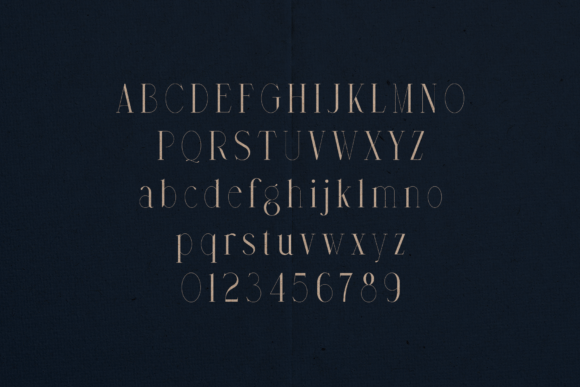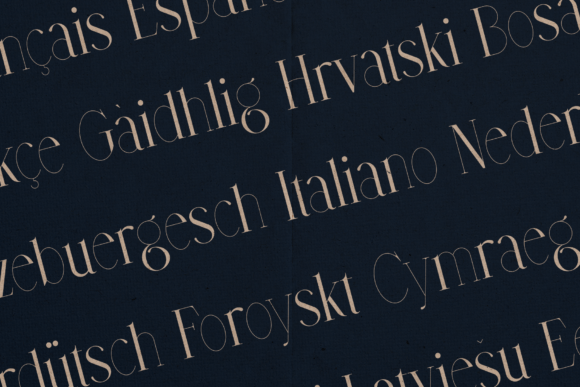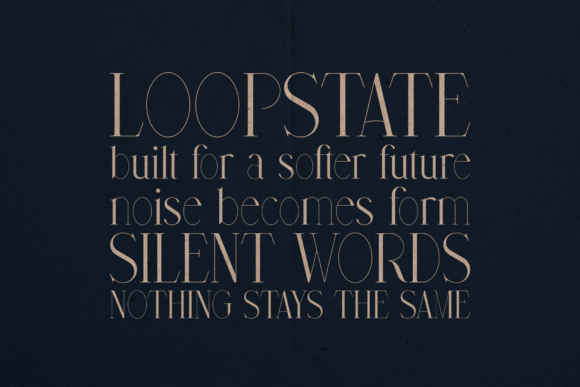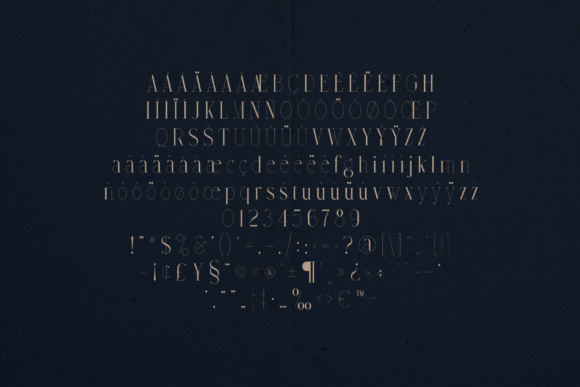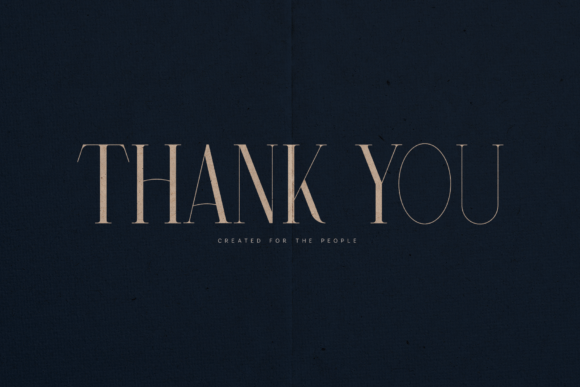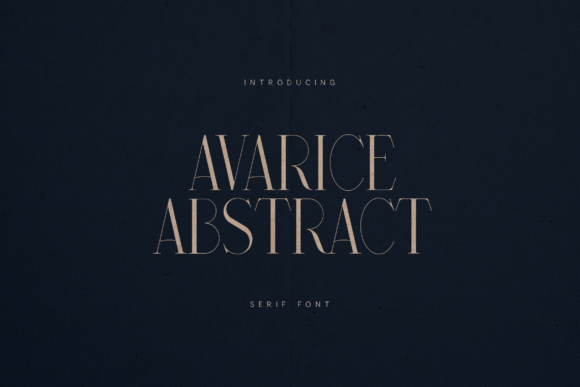
Avarice Abstract Font: Elevate Your Design with Luxury and Sophistication
In the world of typography, few fonts manage to strike a balance between elegance and artistic tension. Avarice Abstract, a refined high-contrast serif font, is one such exceptional typeface that has been designed to make a statement. With its sculpted curves, delicate transitions, and dramatic contrast, Avarice Abstract is perfect for luxury branding, sophisticated editorials, and elevated visual identities.
Avarice Abstract boasts a range of design characteristics that set it apart from other serif fonts. Its uppercase letters exude bold presence, while the lowercase forms add refinement and rhythm. The font’s high contrast and delicate curves create a sense of drama and sophistication, making it ideal for statement typography. The intricate ligatures and subtle transitions between letters add an artistic touch, perfect for designers and crafters looking to elevate their work.
Perfect for Luxury Branding and Design
Avarice Abstract is a versatile font that can be used in a variety of design applications. Its refined and elegant aesthetic makes it perfect for:
- Luxury branding: Create a lasting impression with Avarice Abstract’s sophisticated and high-end feel.
- Fashion campaigns: Elevate your fashion brand with a font that exudes style and elegance.
- Editorial layouts: Add a touch of sophistication to your editorial designs with Avarice Abstract’s refined curves and transitions.
- Logo design: Create a bold and memorable logo with Avarice Abstract’s sculpted uppercase letters.
- Beauty packaging: Add a touch of luxury to your beauty packaging with Avarice Abstract’s elegant and refined aesthetic.
- Wedding stationery: Make your wedding invitations and stationery truly special with Avarice Abstract’s sophisticated and elegant feel.
- Modern posters: Create eye-catching posters with Avarice Abstract’s bold and artistic typography.
- High-end social media graphics: Elevate your social media presence with Avarice Abstract’s refined and elegant aesthetic.
Tips for Using Avarice Abstract
To get the most out of Avarice Abstract, here are a few tips to keep in mind:
- Use plenty of white space: Allow Avarice Abstract’s intricate ligatures and delicate curves to breathe by using plenty of white space in your design.
- Pair with a muted color palette: Create an atmosphere of timeless sophistication by pairing Avarice Abstract with a muted color palette and soft photography.
- Experiment with ligatures: Take advantage of Avarice Abstract’s intricate ligatures to add an artistic touch to your design.
Why Choose Avarice Abstract?
With so many fonts available, why choose Avarice Abstract? Here are just a few reasons why this exceptional typeface stands out:
- Unique blend of elegance and artistic tension: Avarice Abstract strikes the perfect balance between sophistication and creativity.
- High-quality design: With its refined curves and delicate transitions, Avarice Abstract is a testament to exceptional design.
- Versatility: From luxury branding to wedding stationery, Avarice Abstract can be used in a wide range of design applications.
In conclusion, Avarice Abstract is a truly exceptional font that is sure to elevate your design work. With its refined high-contrast serif design, sculpted curves, and delicate transitions, this typeface is perfect for designers and crafters looking to add a touch of luxury and sophistication to their work. Whether you’re working on a luxury branding project, fashion campaign, or editorial layout, Avarice Abstract is the perfect choice.